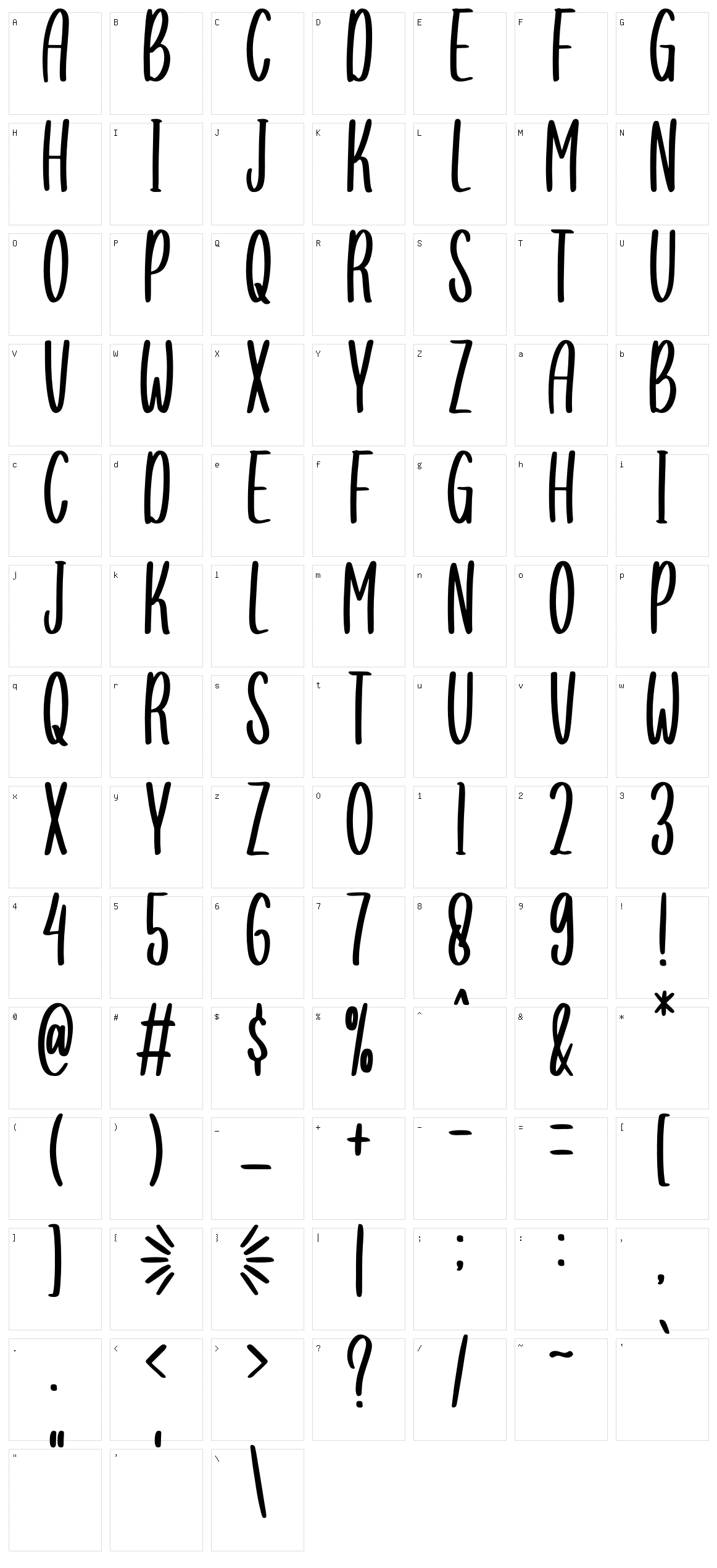
The free font You Are My Everythink Display is carefully designed by NJ Studio, showcasing a thoughtful balance of creativity and usability and falls under the Script font style. When you download the ZIP file, it contains only 29.41 KB of font files, making it lightweight and quick to download. Please review the license details below to understand permitted usage and distribution rights. If license information is not available, we recommend using this font for personal projects only or contacting the author directly for commercial usage permissions.